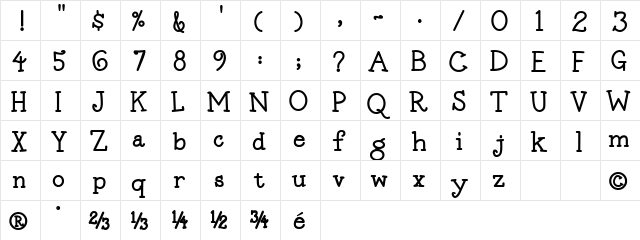
MummBasic Bold Font Preview
MummBasic Bold
Design Context for MummBasic Typeface
MummBasic takes a measured approach to typography — its balanced proportions and neutral character make it a reliable workhorse for both digital and print work. Its bold stroke weight gives it real presence on the page.